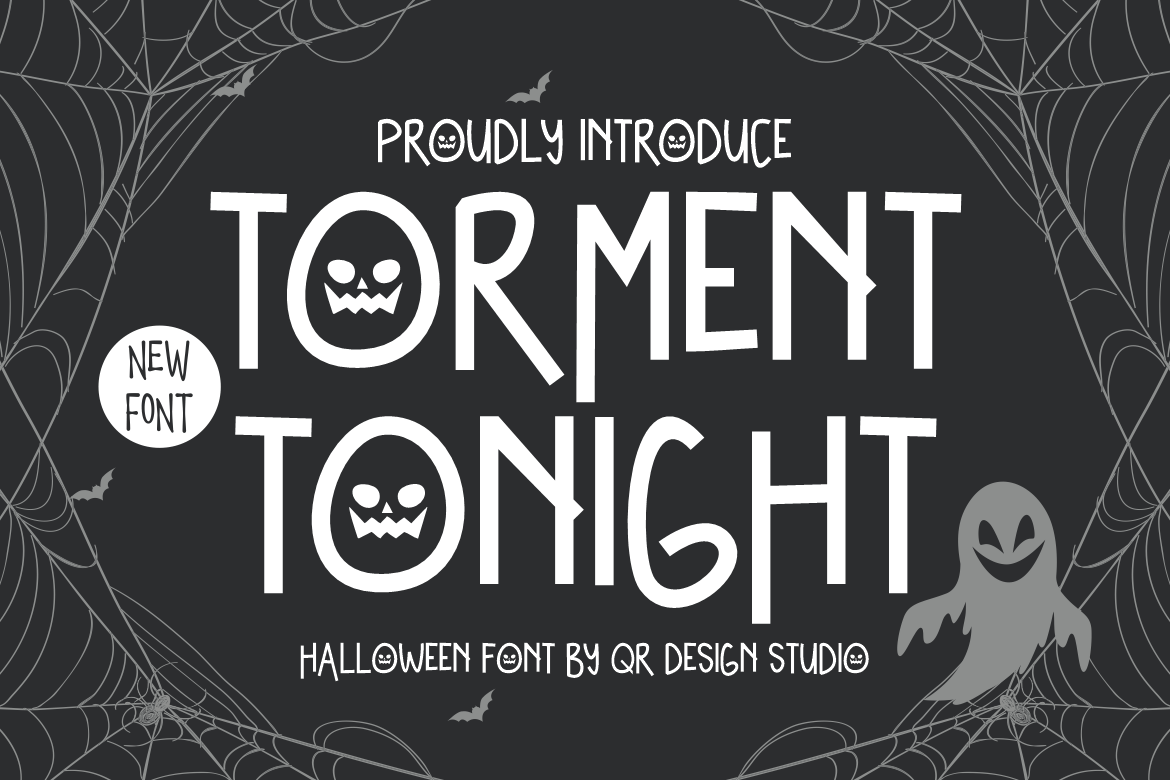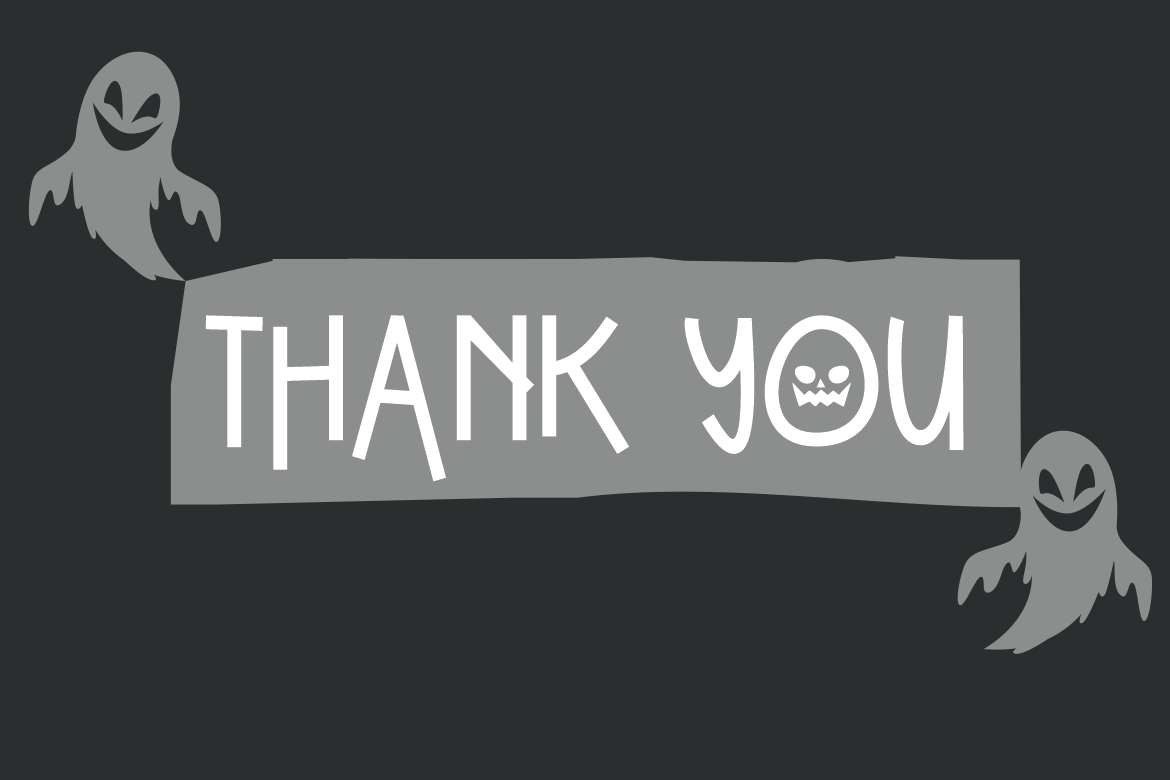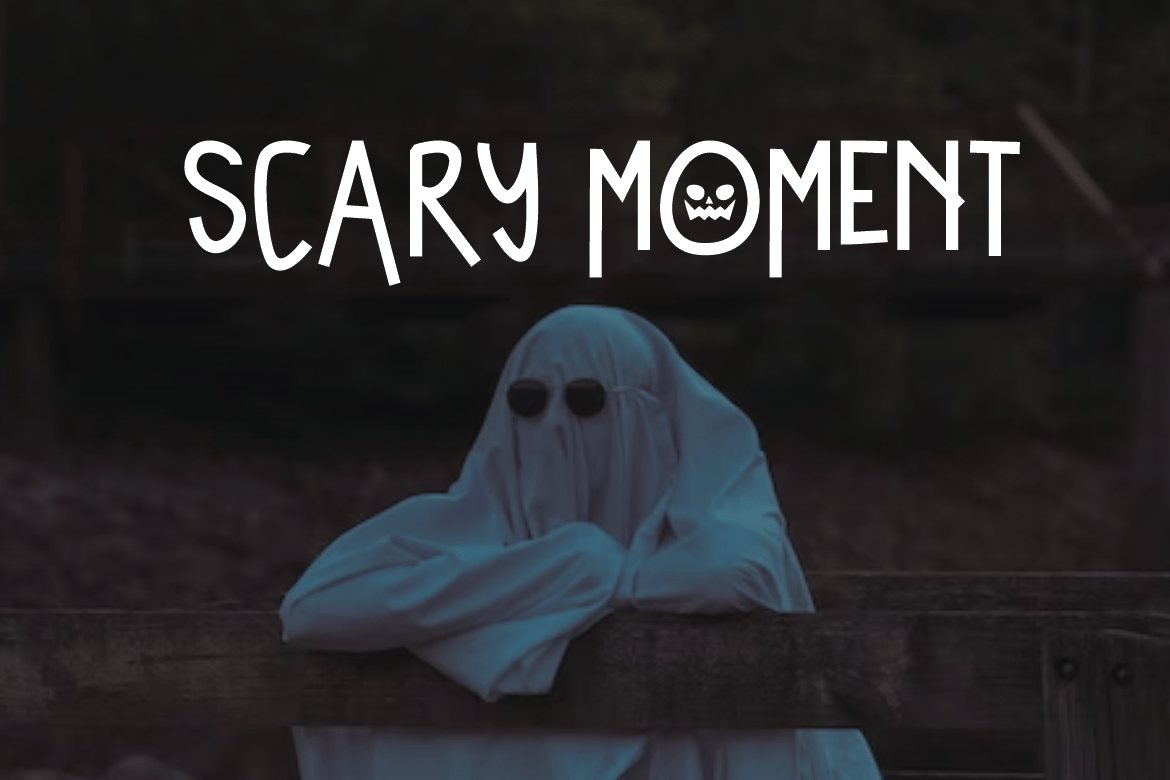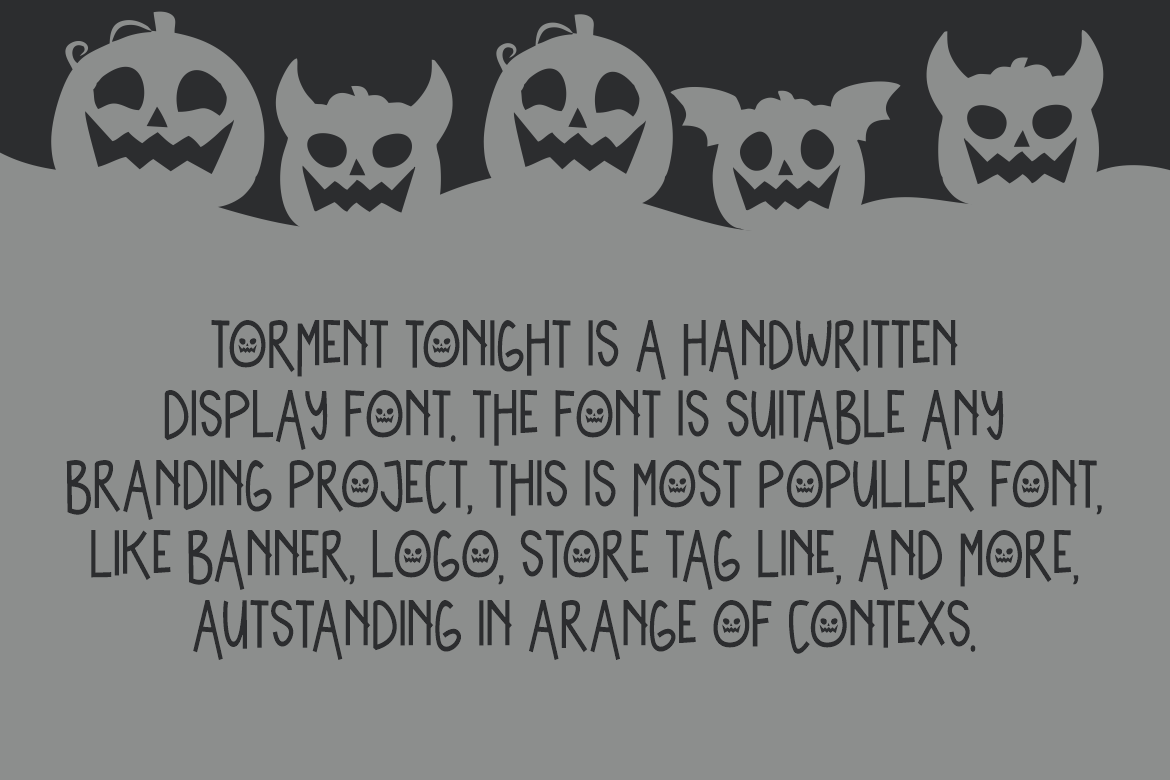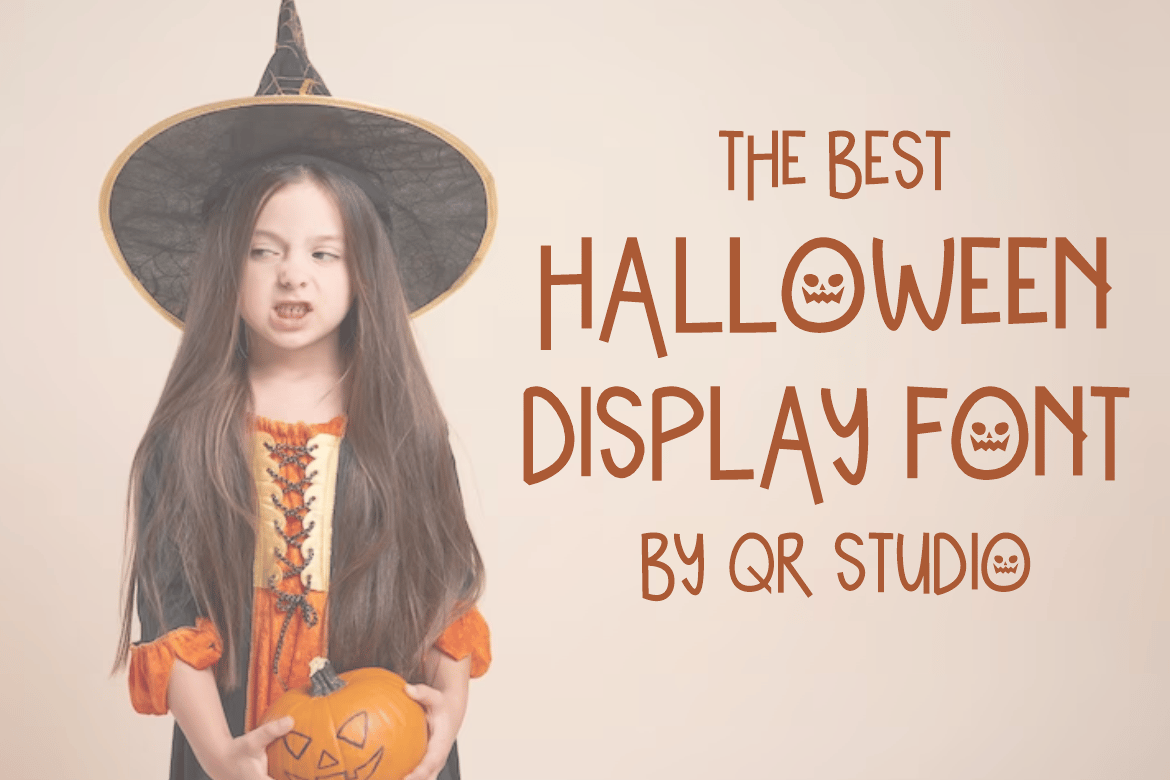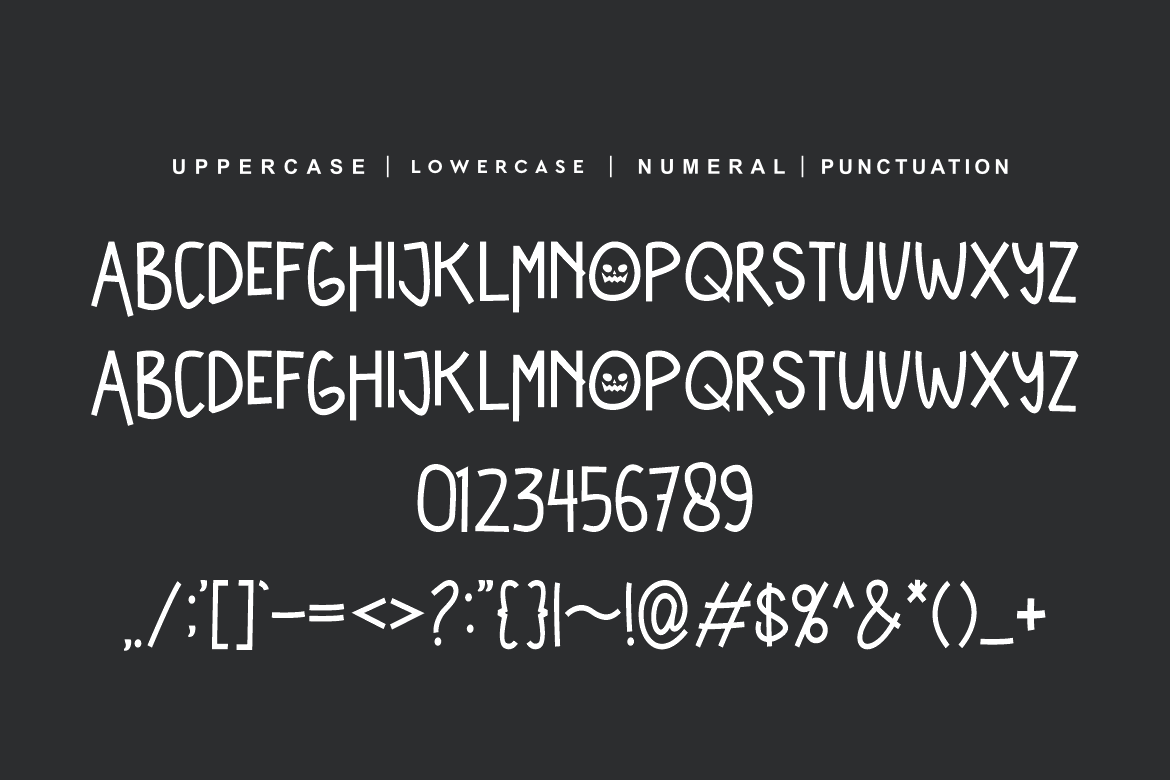
Torment Tonight – Halloween Font
Torment Tonight – Halloween Font is a bold and authentic display font. The font is suitable for any branding project like logo, hallowen, food, poster, kids, sport, and many more. Outstanding in a wide range of contexts.